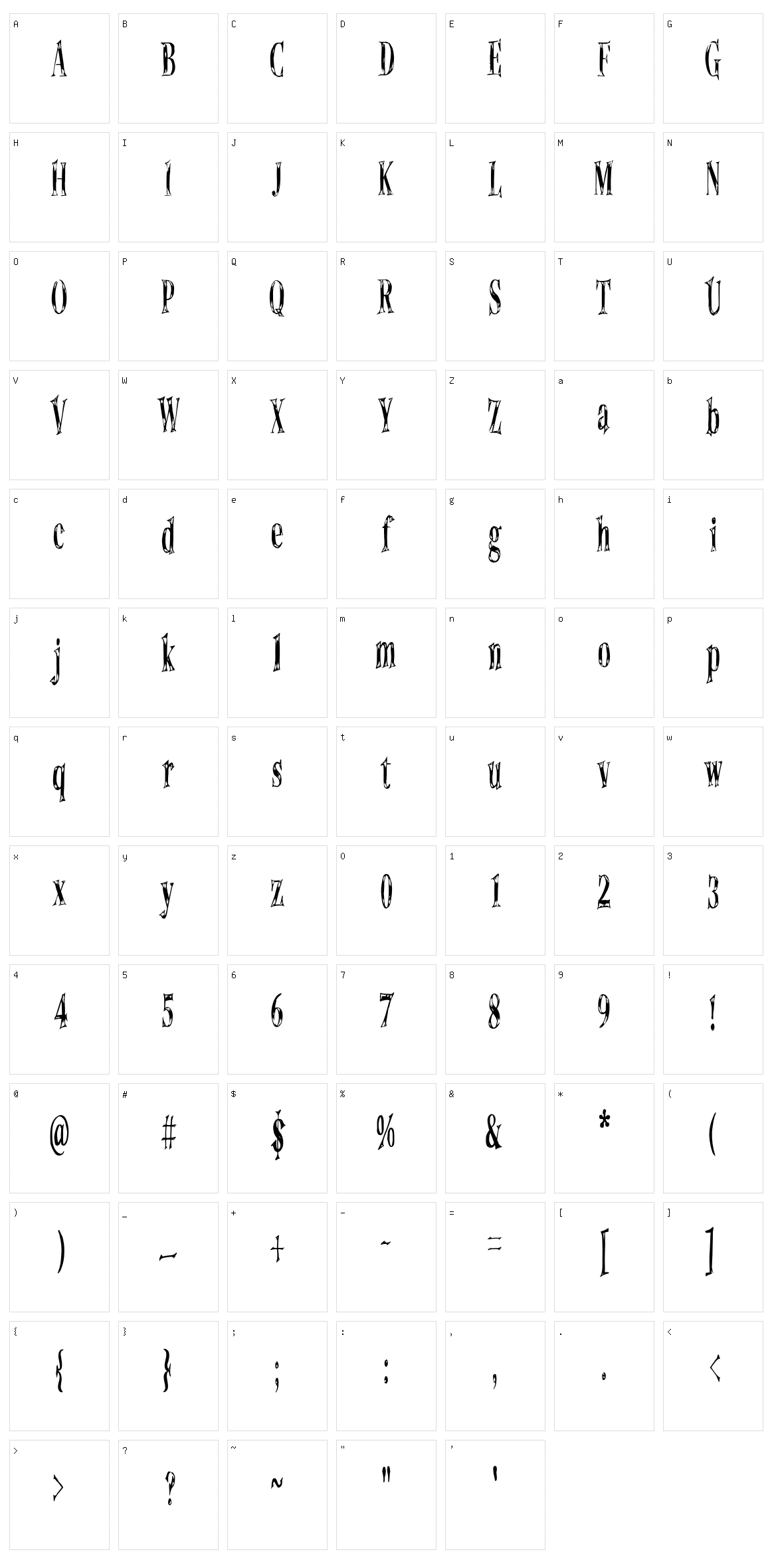
The free font Unfinished Scream is carefully designed by Wingsart Studio, showcasing a thoughtful balance of creativity and usability and falls under the Horror font style. When you download the ZIP file, it contains only 756.04 KB of font files, making it lightweight and quick to download. Please review the license details below to understand permitted usage and distribution rights. If license information is not available, we recommend using this font for personal projects only or contacting the author directly for commercial usage permissions.